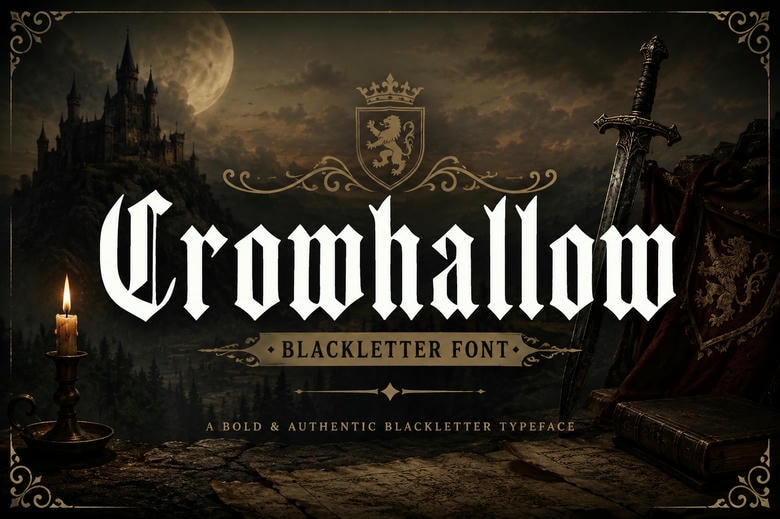
Crowhallow Font
Crowhallow is a bold, authentic blackletter typeface designed to bring a sense of regal authority and rustic drama. With its thick, chiseled strokes and sharp angles, this font reflects the style of ancient manuscripts, knightly crests, and gothic heraldry.
Crowhallow works well for medieval logos, fantasy game titles, craft beer labels, dark romance book covers, streetwear, and crest branding. It helps your headers stand out right away.
Crowhallow Blackletter Font